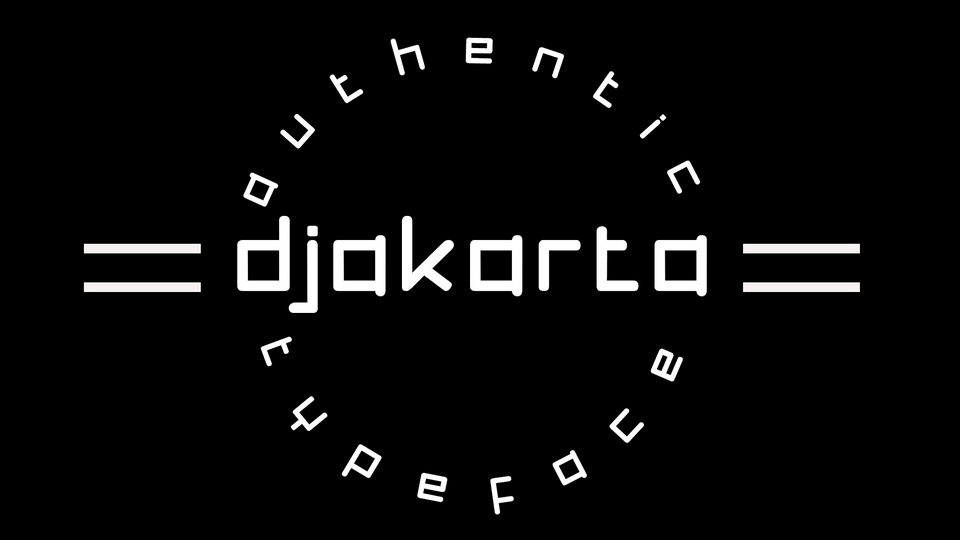
Feb 6, 2025DisplayDjakarta Font Djakarta is a robotic and squared lettered display font. This adaptable font will look great on a variety of design ideas. It will add a fun and friendly touch to each of your projects. Font DetailsDesigned by: Murisa StudioWebsiteLicense: Free for personal use Download Djakarta FontFile size: 14.10 KBCreated: February 16, 2025Updated: February 16, 2025 Download Explore similar fonts Bodygo Font Coalition Font Futech Font Netech Font Board of Directors Font Origin Font # Square# Technology More fonts by Murisa StudioLauren FontBarbara FontAlexandra FontSamantha FontAlexenia FontCatherine FontBabyfish FontMurisa Betzmann Font